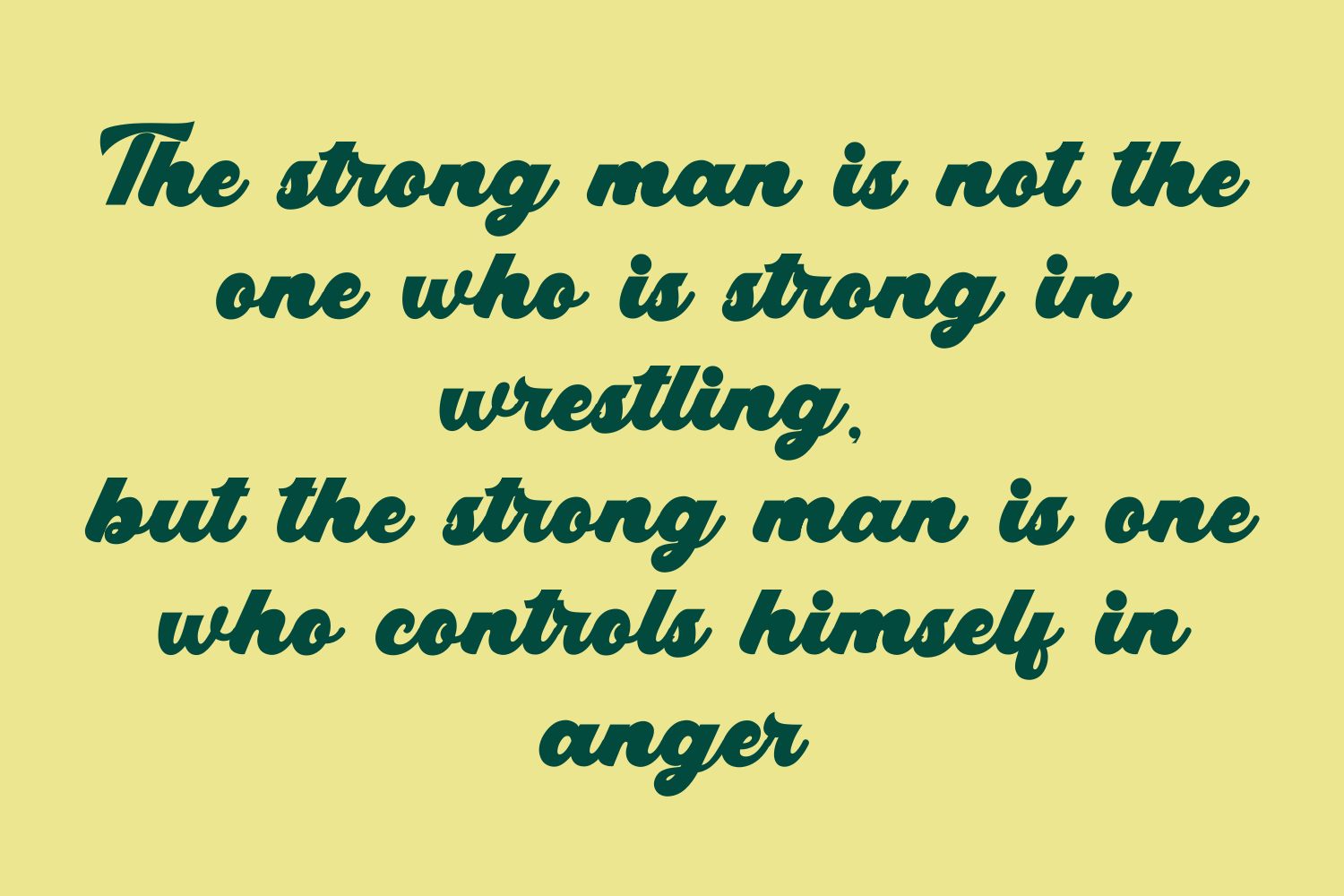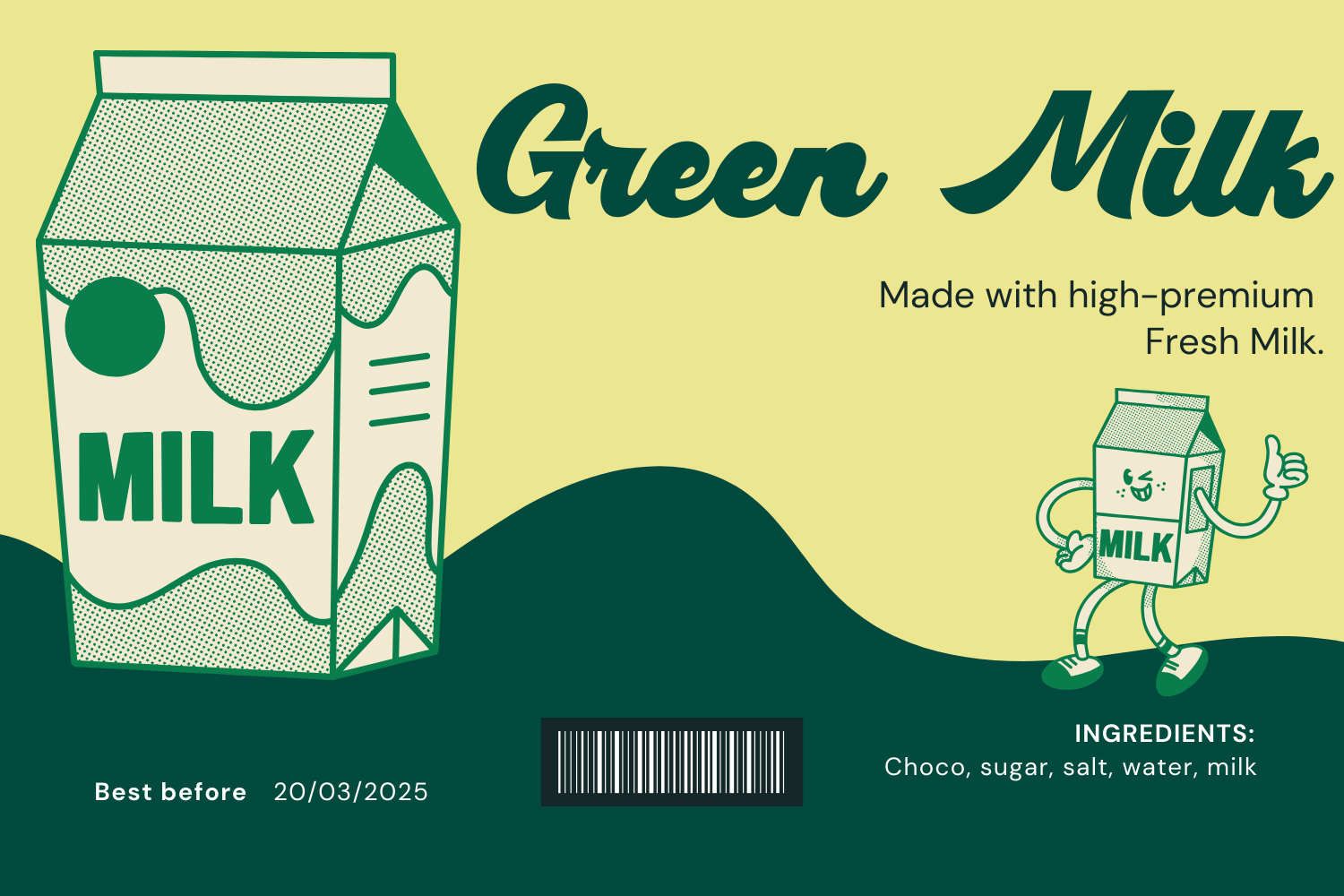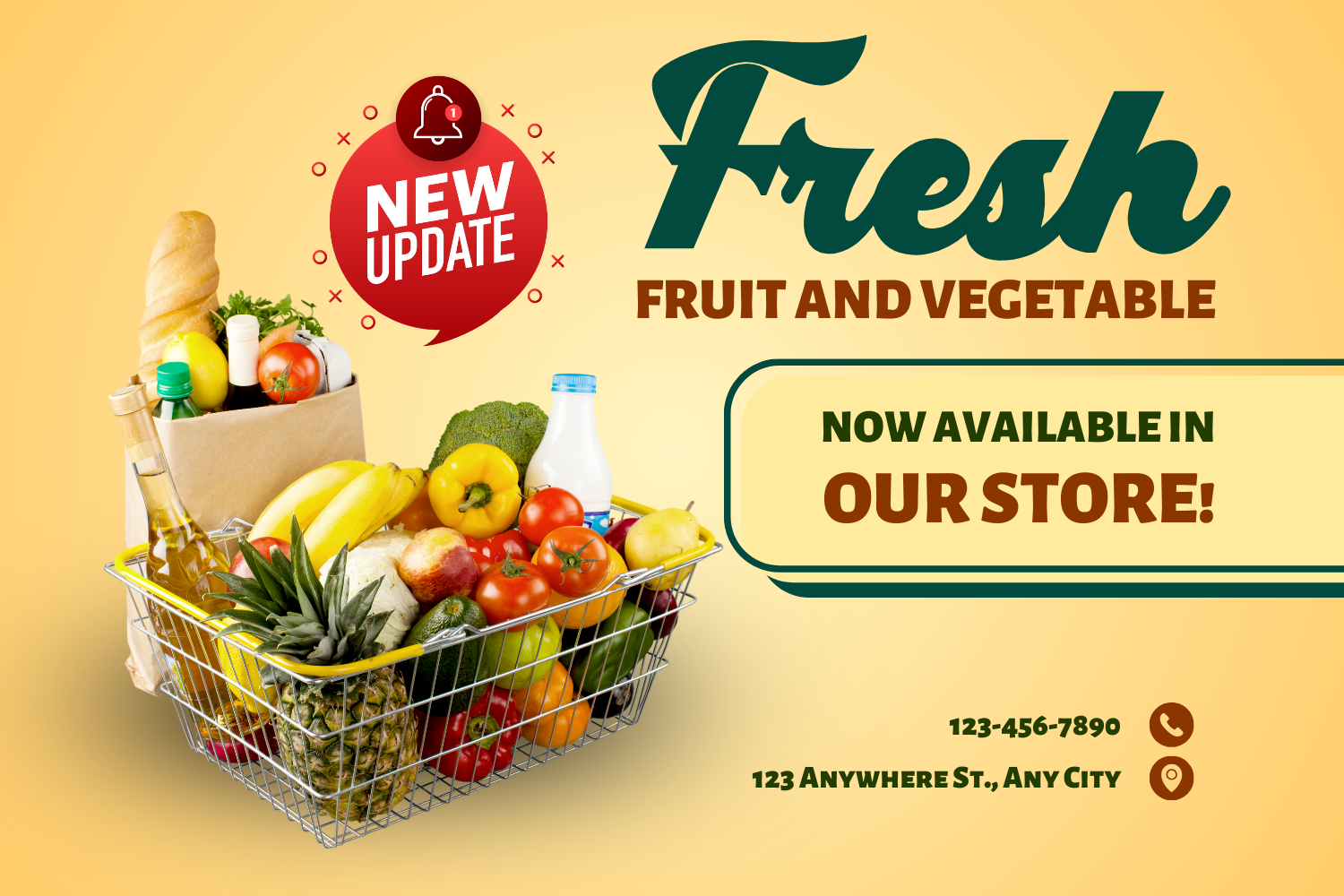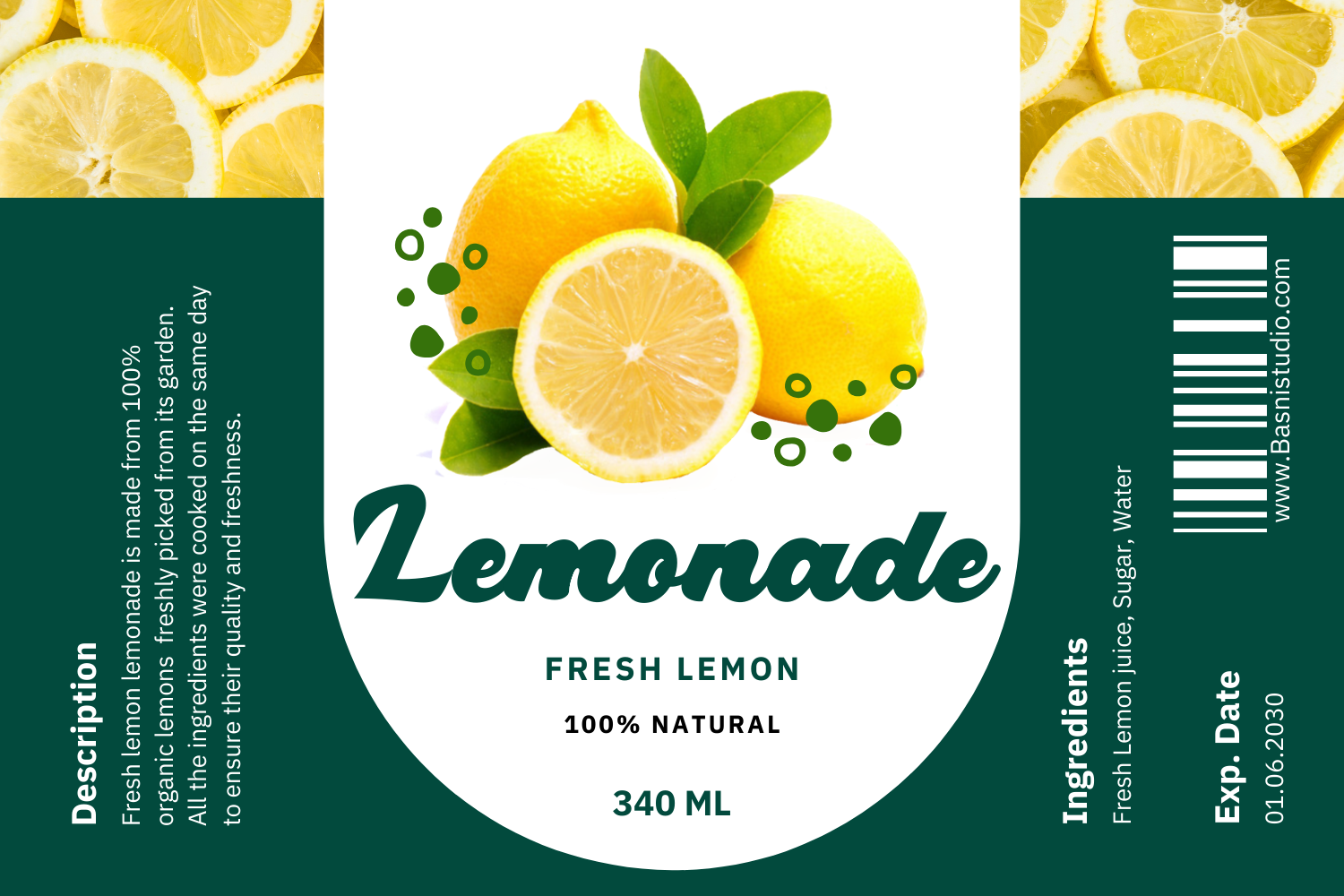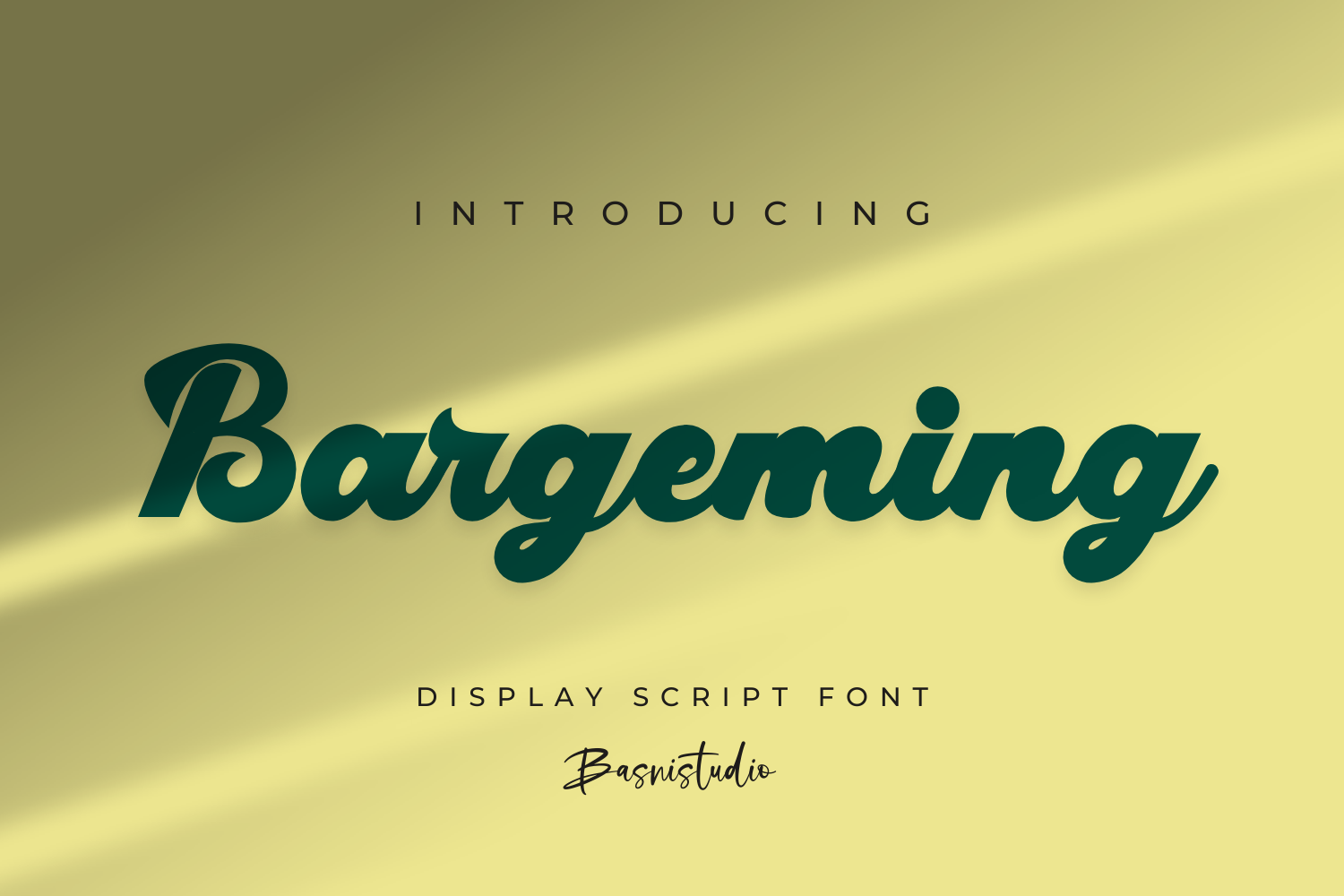
Bargeming Font
Bargeming is a bold and impactful display font with a slightly distressed, vintage feel. Its strong, condensed letterforms and rough edges create a rugged and industrial aesthetic, perfect for headlines, posters, and branding. Bargeming evokes a sense of authenticity and grit, making it ideal for projects that demand attention and a touch of raw power. It’s versatile enough for both modern and retro designs.